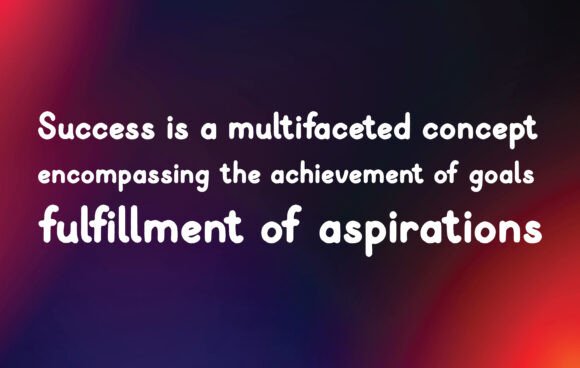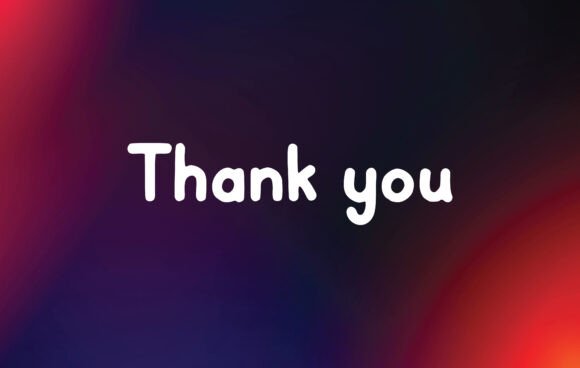
Introduction to Lechwe Font
Lechwe is a lovely and beautiful handwritten font.
Key Features of Lechwe Font
Why Choose Lechwe Font?
Lechwe Font offers exceptional quality and versatility, making it a valuable addition to your design toolkit. Whether you’re creating for personal projects or commercial use, Lechwe Font delivers professional results.